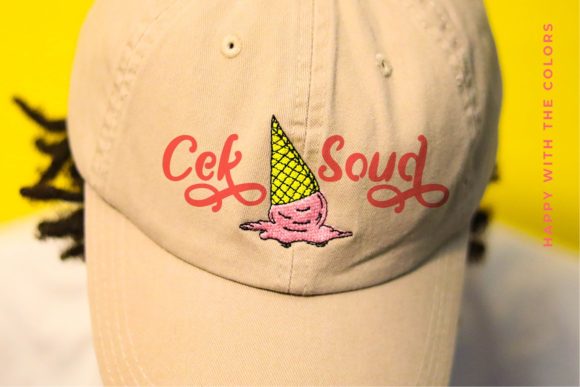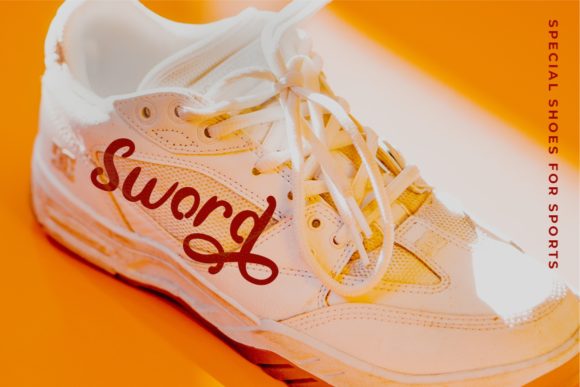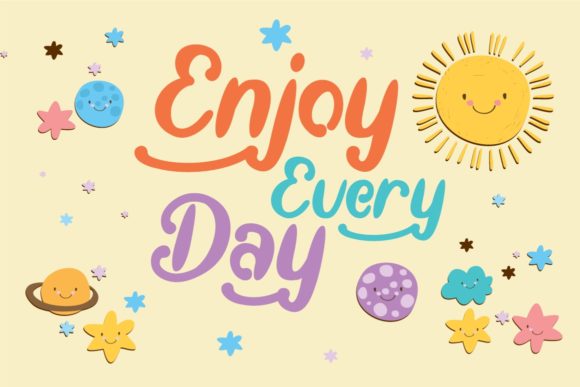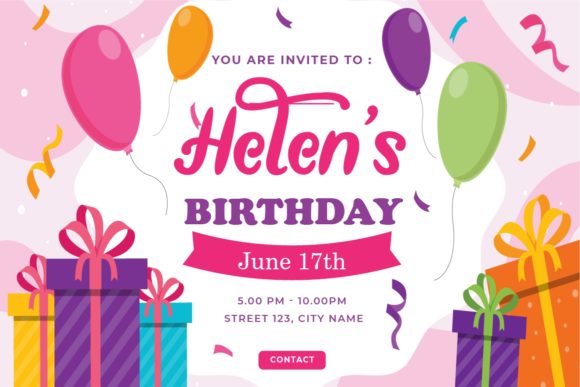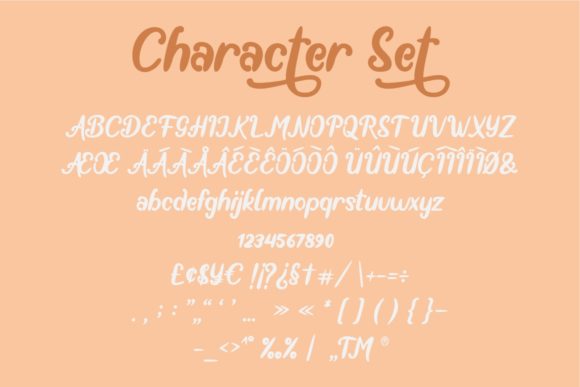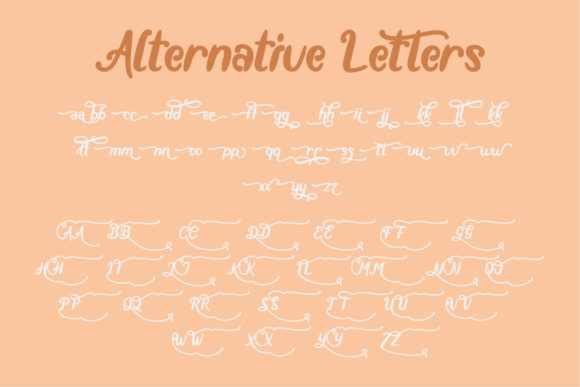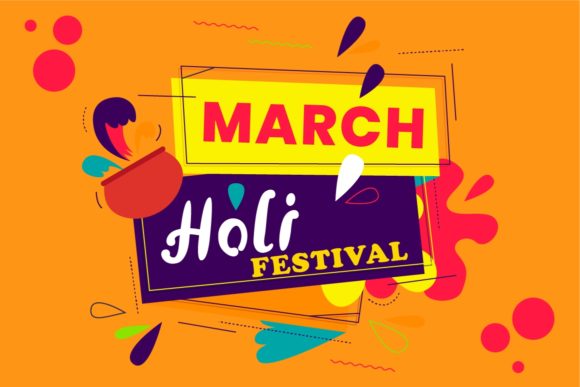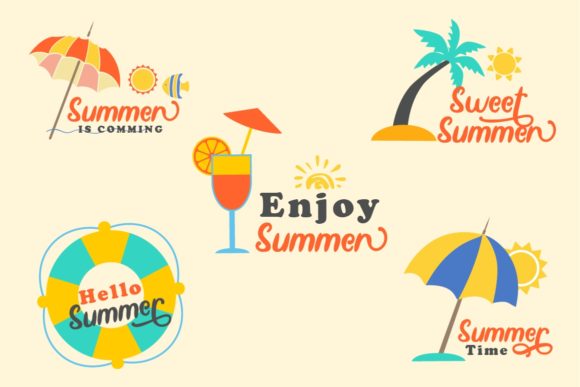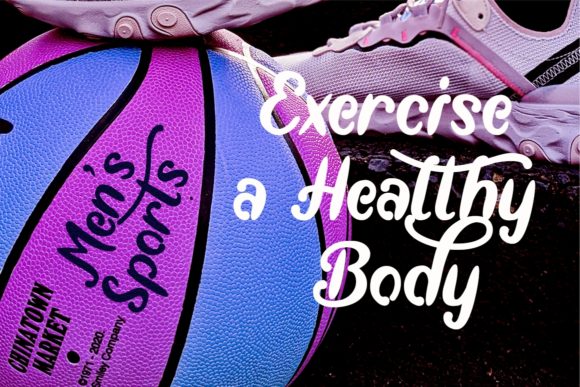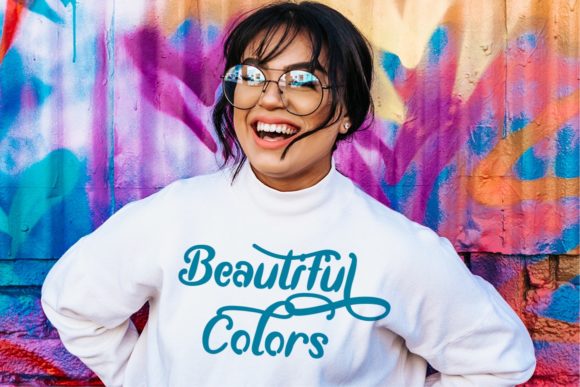
Absolute Joyful Font
About Absolute Joyful Font
Absolute Joyful is a charming and friendly handwritten font. Whether you’re looking for fonts for social media or calligraphy scripts for DIY projects, Absolute Joyful will turn any creative idea into a true piece of art!